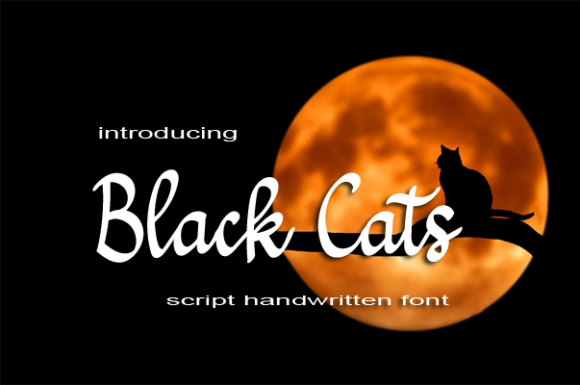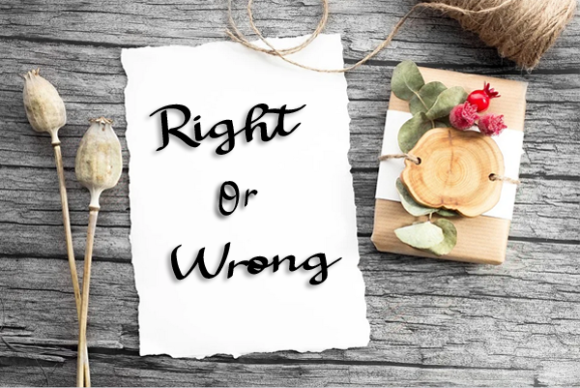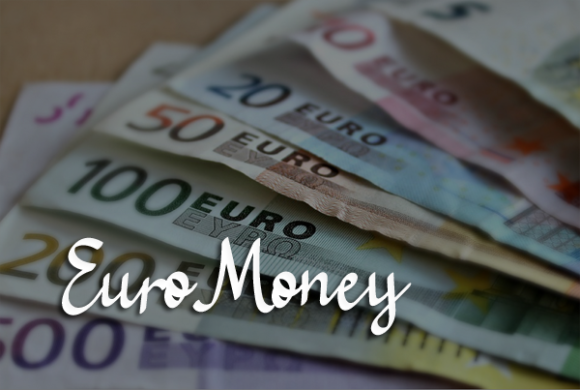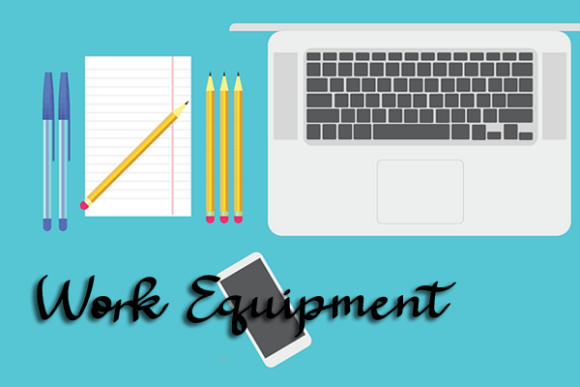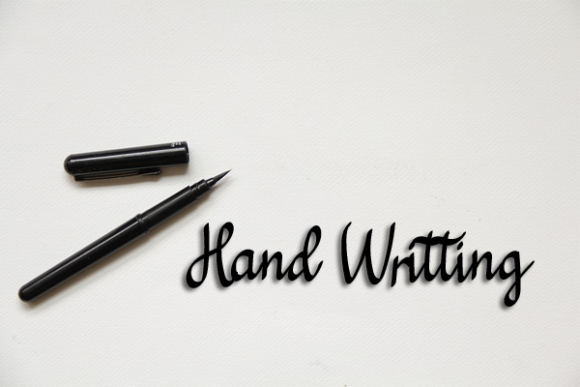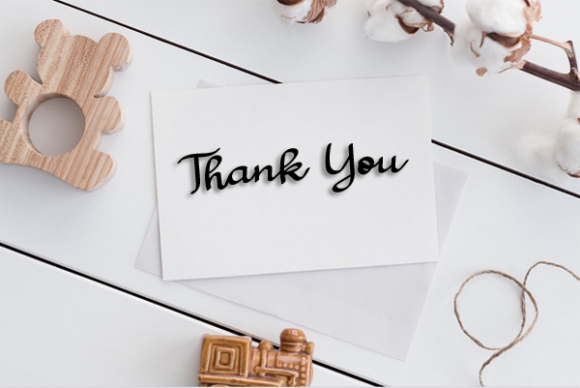
Black Cats Font
About Black Cats Font
Black Cats is a whimsical script font with a relaxed theme, featuring a lovely style. No matter the topic, this font will be an incredible asset to your fonts’ library, as it has the potential to elevate any creation